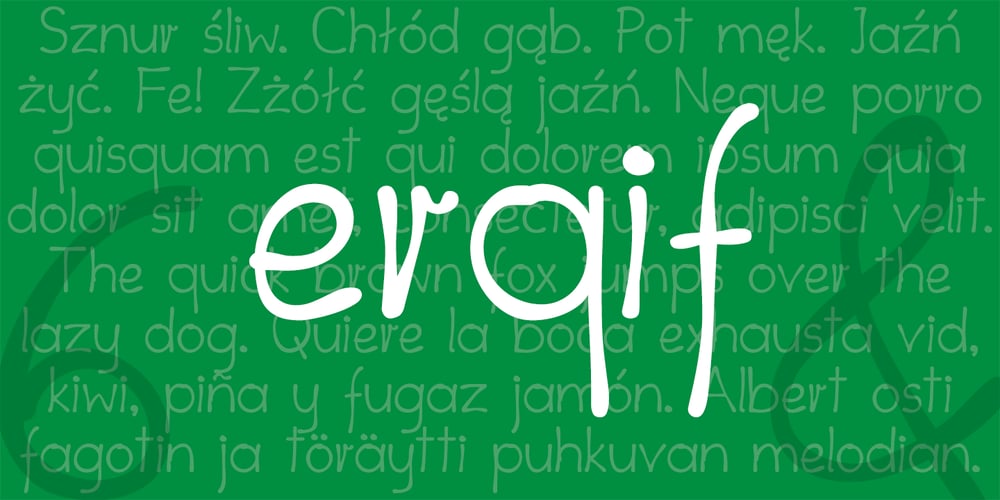
erqif Font Family was designed by Damian Baliński and published by Guixis. erqif contains 2 styles and family package options. This font is a nod to paper notebooks in which a long time ago students made notes. That’s why the font looks like written by hand. The inspiration of this family font is the phrase, “Let me go back to the past”.